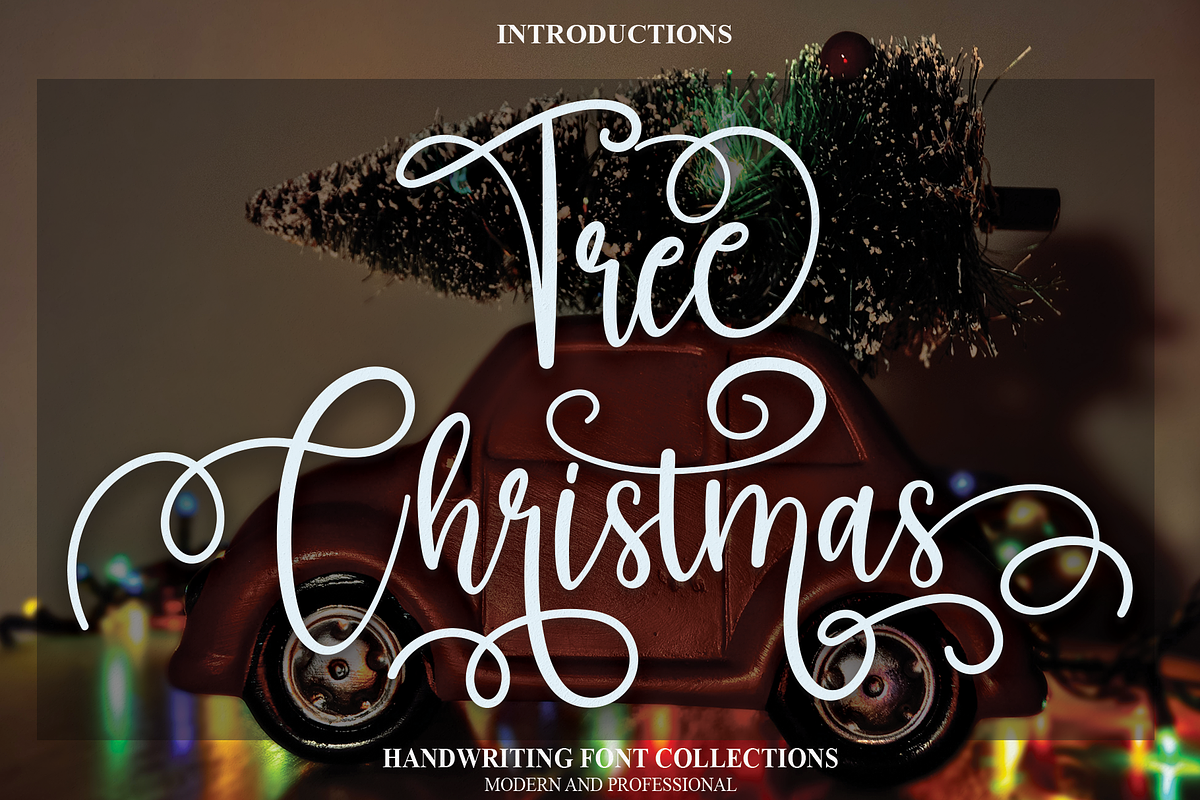
Tree Christmas | Script Font Free Download
Tree Christmas | Script Font Free Download is a festive and elegant handwritten script typeface designed to bring a touch of holiday cheer to your designs. With its smooth, flowing lines and decorative elements, this font is perfect for creating Christmas cards, holiday invitations, social media graphics, and branding materials related to the festive season.
Its whimsical and cheerful style adds a warm, personalized feel to your projects, making it ideal for seasonal campaigns, decorations, and any creative design that celebrates the holidays.